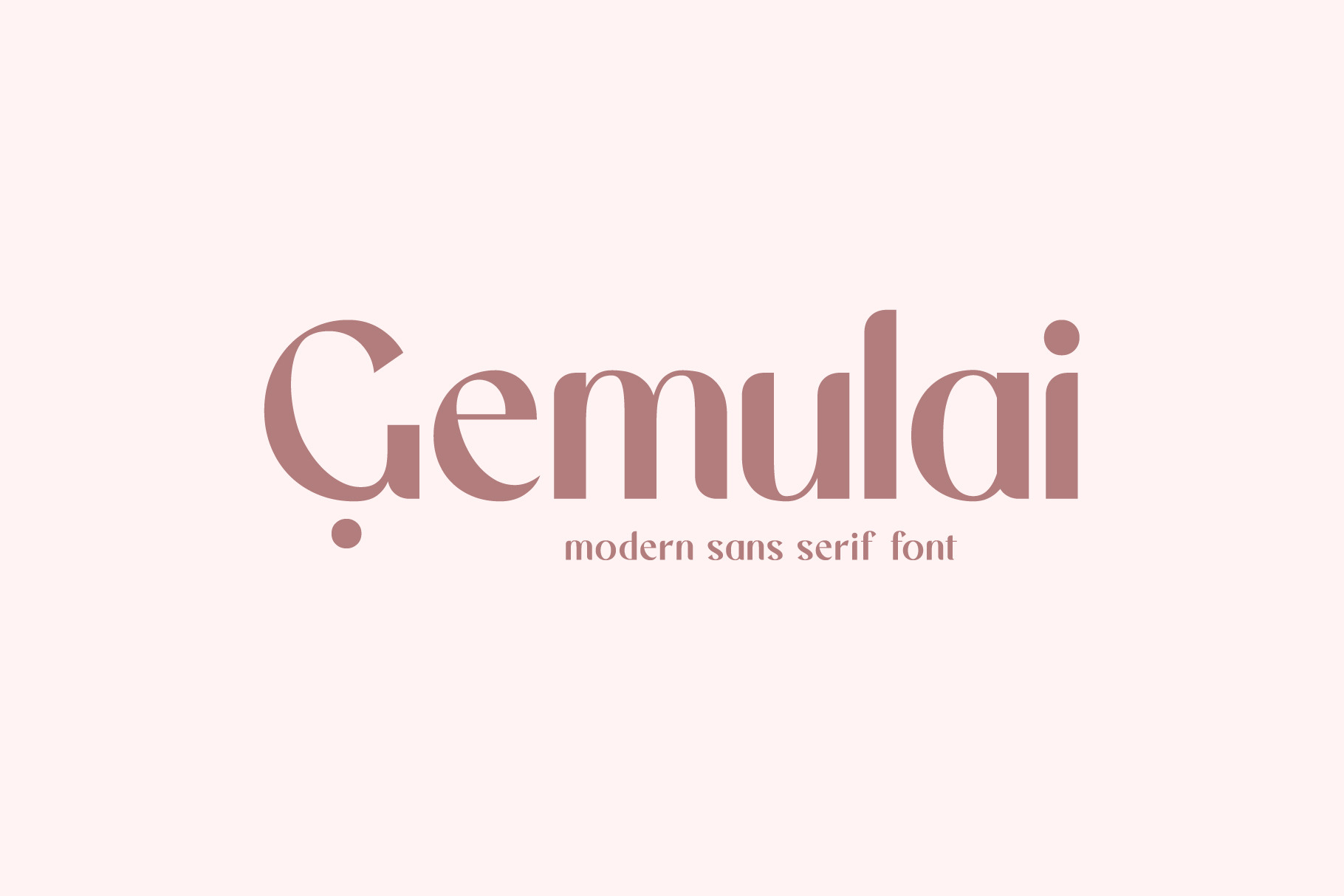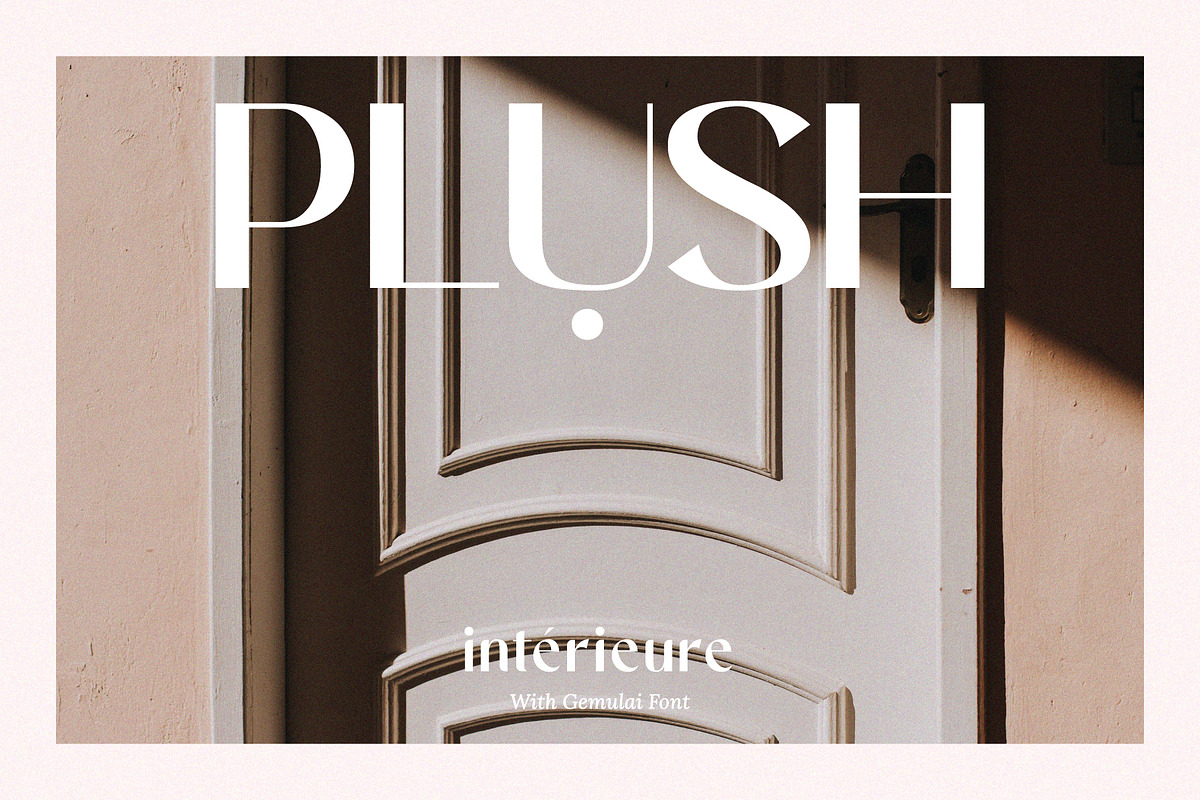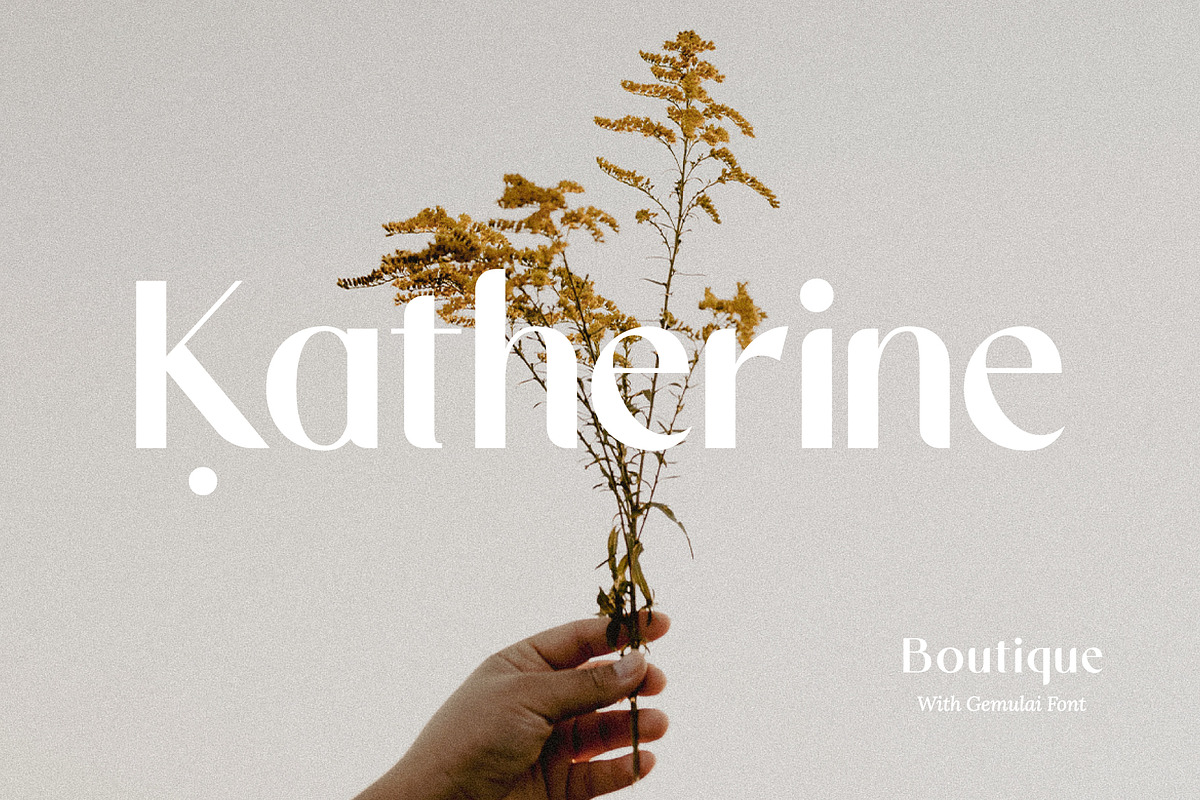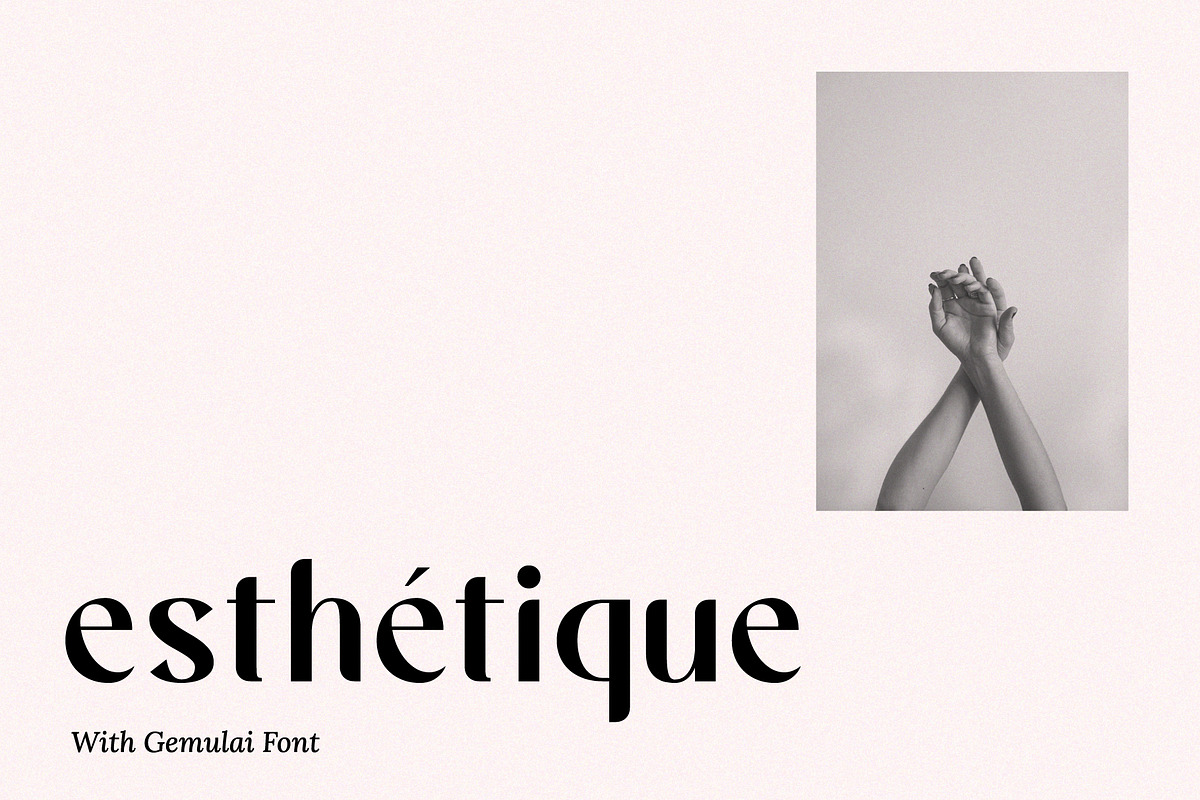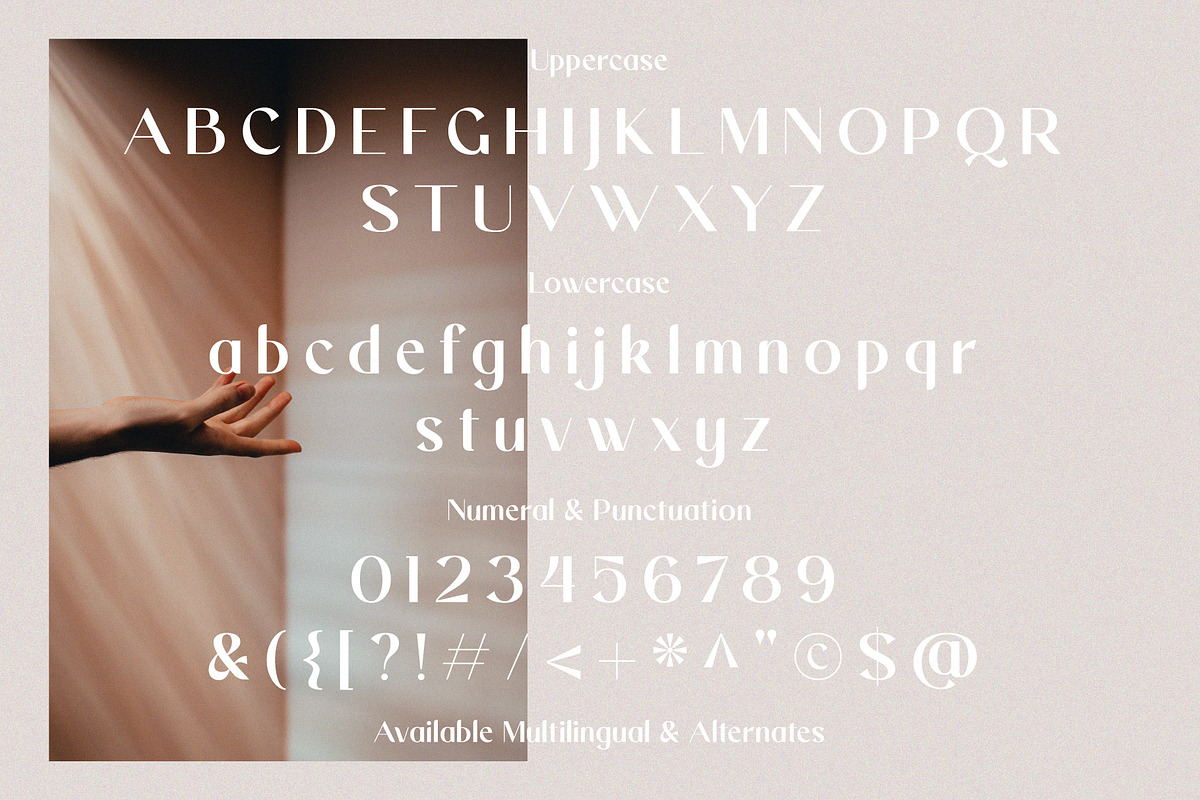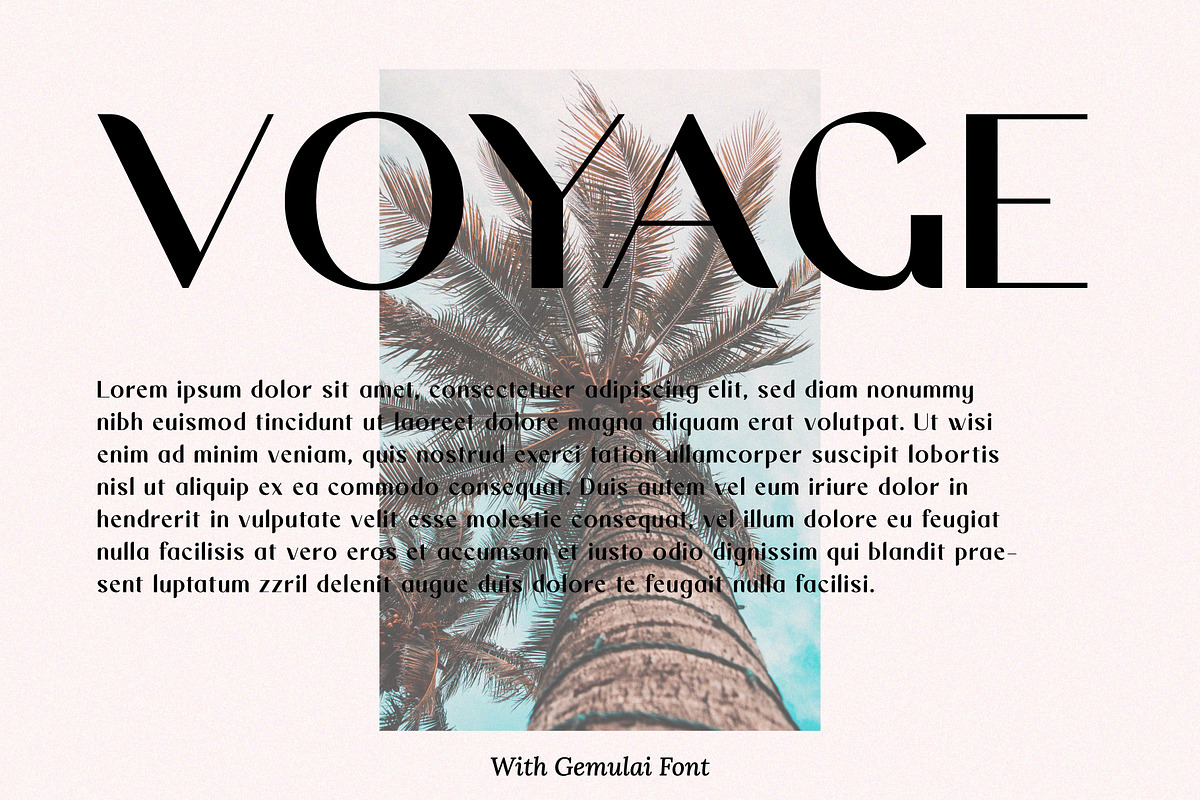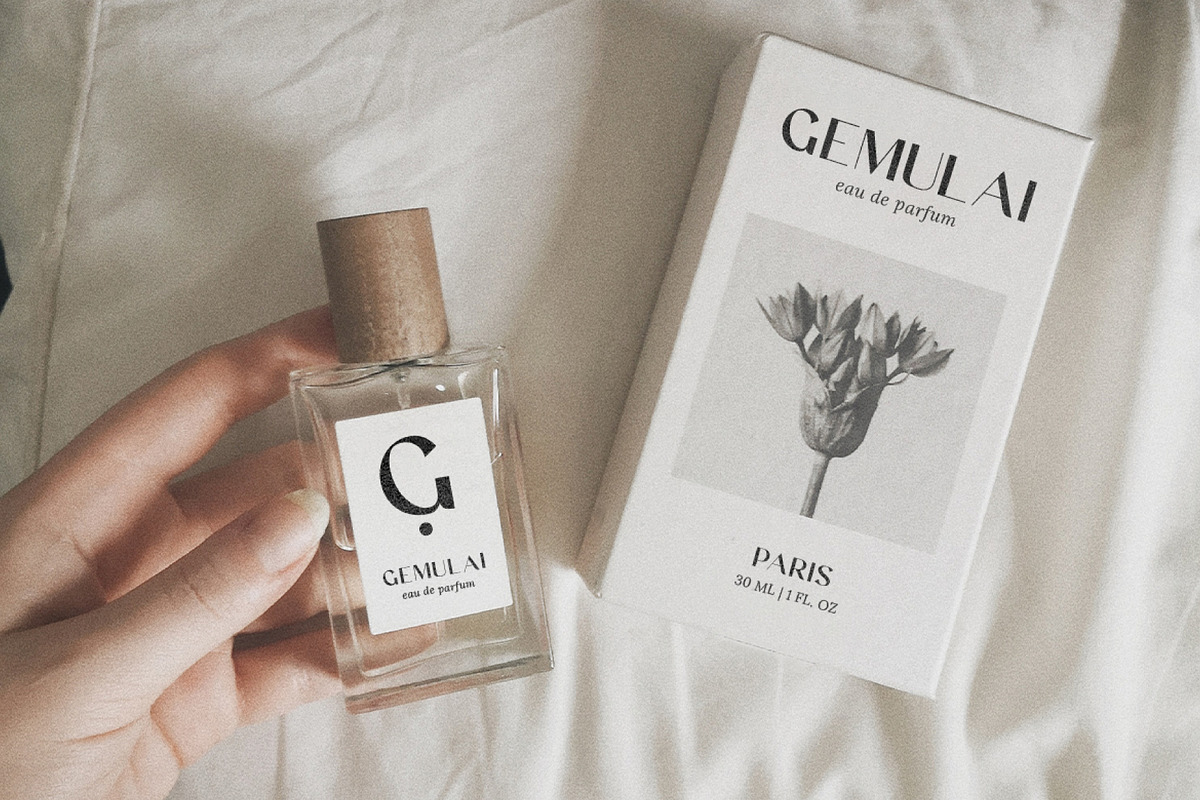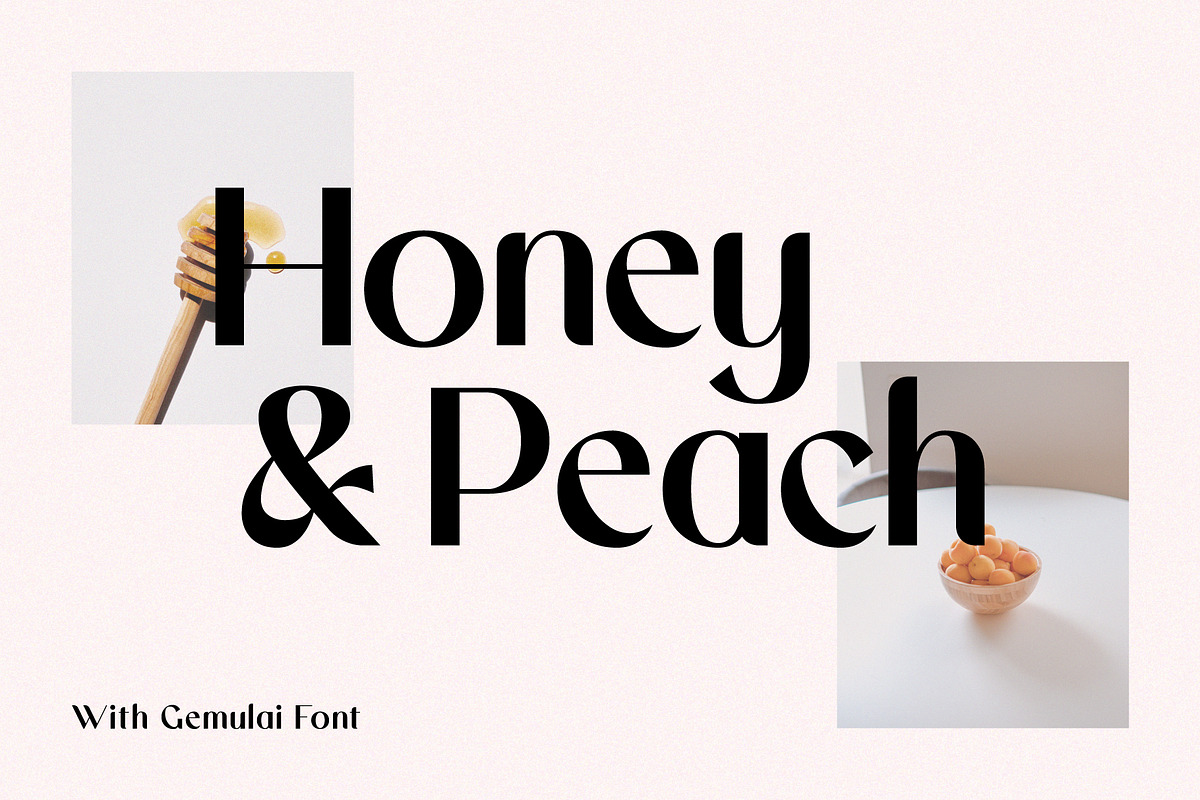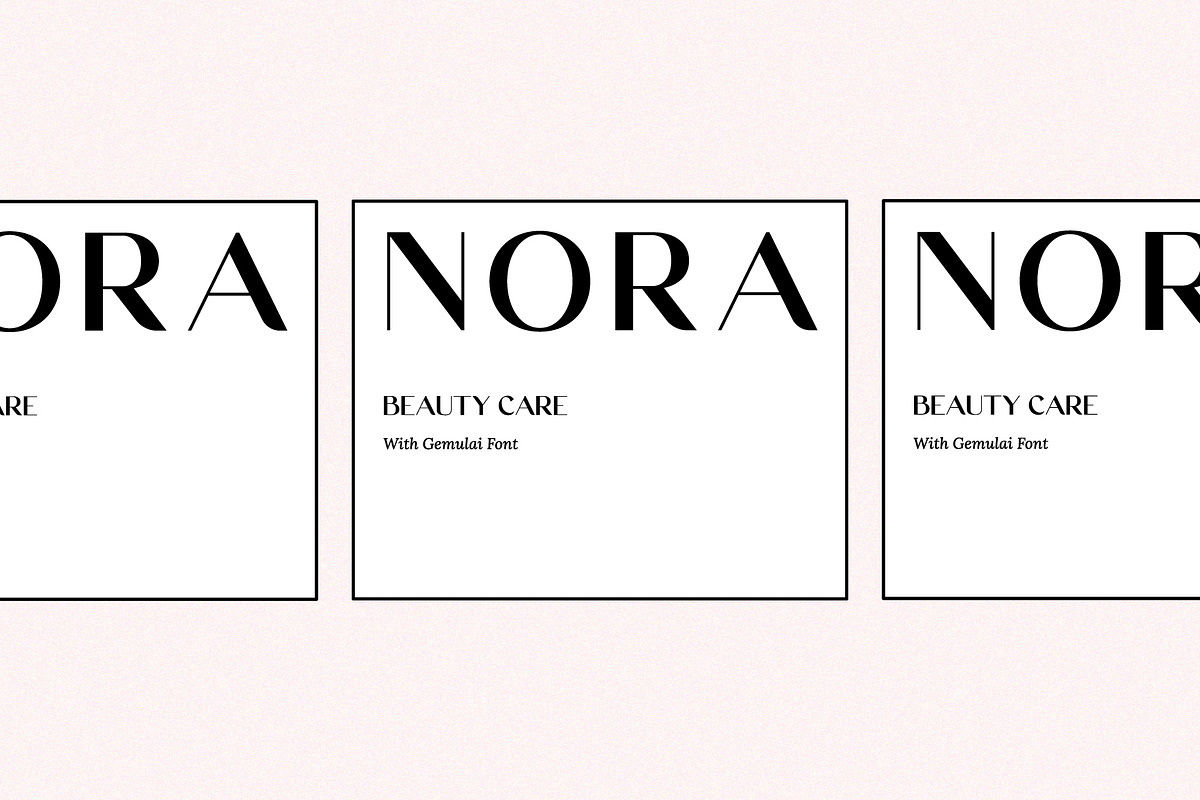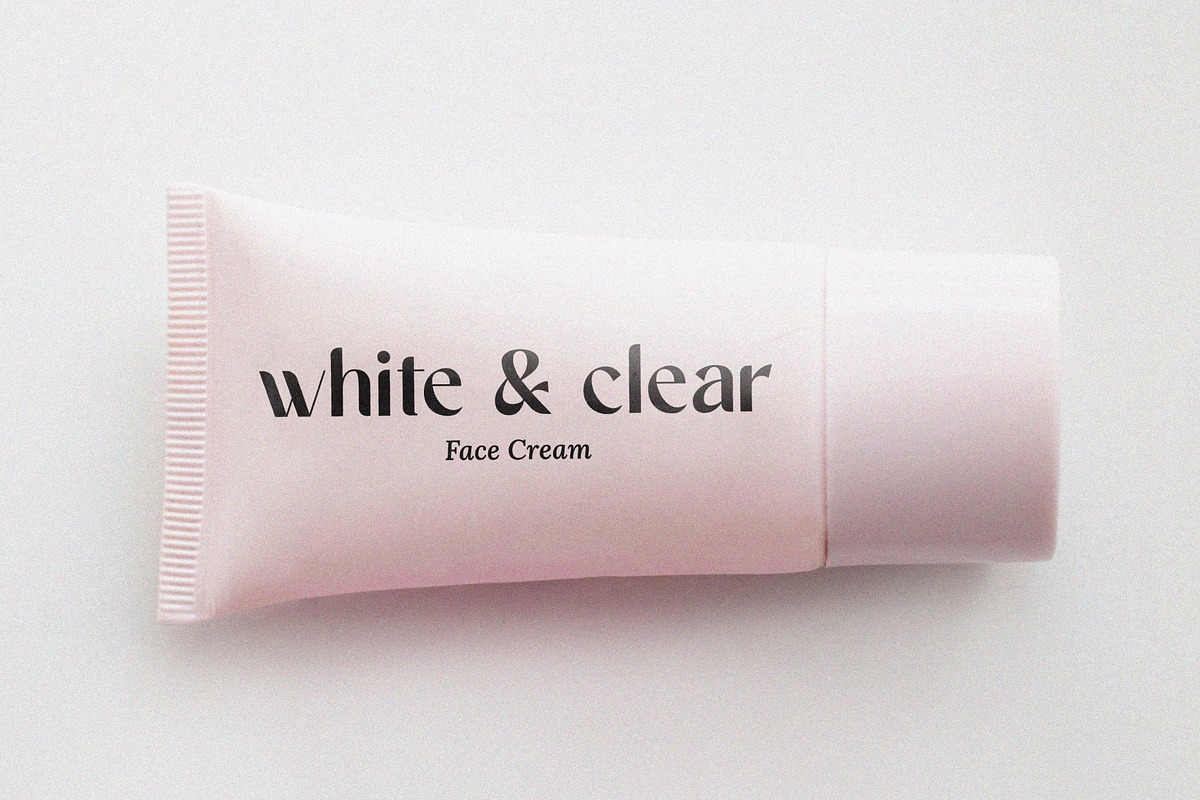
Gemulai - Modern Sans Serif Font
Gemulai - Modern Sans Serif Font.
A modern and simple sans serif font to give your designs a more attractive appearance. Great for branding, logos, covers and more.
- Features: Uppercase, Lowercase, Numeral, Punctuation, Multilingual, Ligatures & Alternates.
- Multilingual contained: Afrikaans, Albanian, Asu, Basque, Bemba, Bena, Breton, Catalan, Chiga, Cornish, Danish, Dutch, English, Estonian, Filipino, Finnish, French, Friulian, Galician, German, Gusii, Indonesian, Irish, Italian, Kabuverdianu, Kalenjin, Kinyarwanda, Luo, Luxembourgish, Luyia, Machame, Makhuwa-Meetto, Makonde, Malagasy, Manx, Morisyen, North Ndebele, Norwegian Bokmål, Norwegian Nynorsk, Nyankole, Oromo, Portuguese, Quechua, Romansh, Rombo, Rundi, Rwa, Samburu, Sango, Sangu, Scottish Gaelic, Sena, Shambala, Shona, Soga, Somali, Spanish, Swahili, Swedish, Swiss German, Taita, Teso, Uzbek (Latin), Volapük, Vunjo, Zulu.